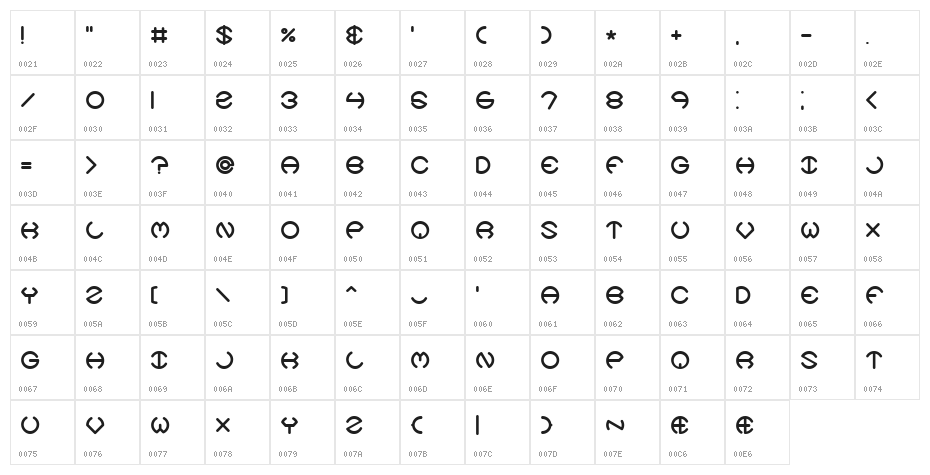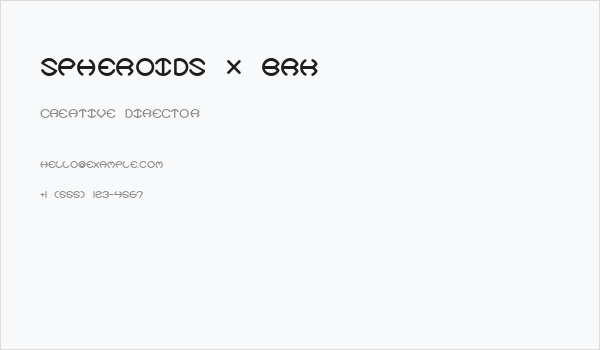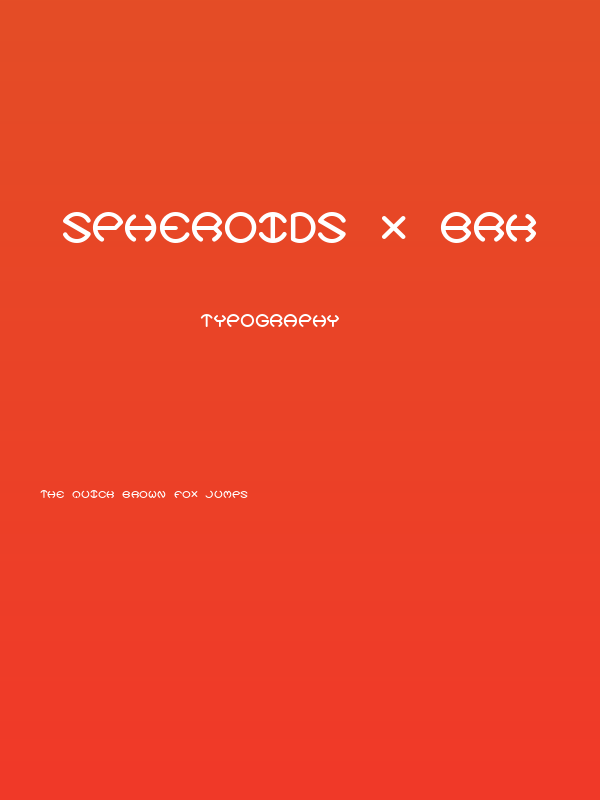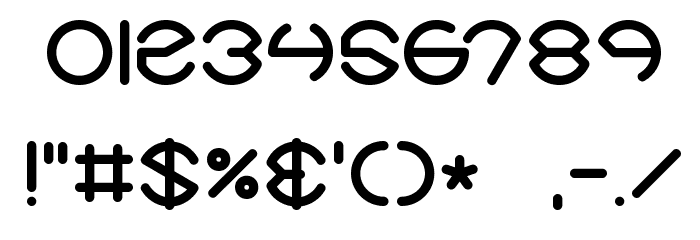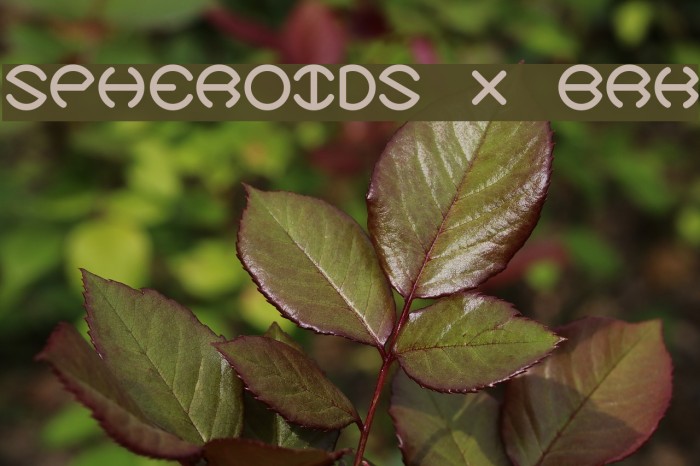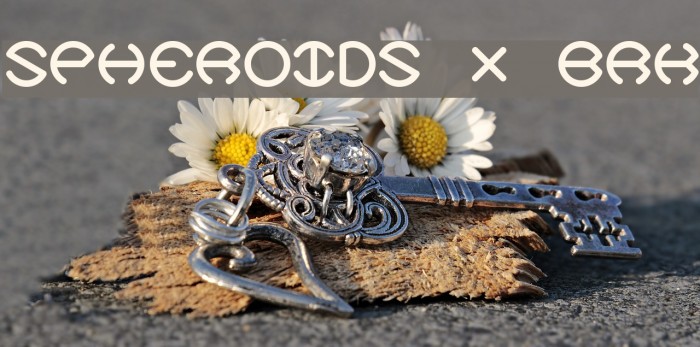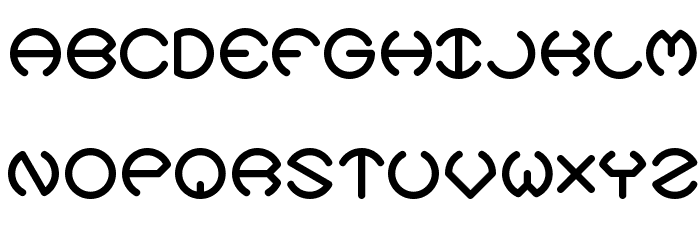
Spheroids X BRK Font
Spheroids X BRK Description
This font features a futuristic and geometric design, characterized by its rounded and interconnected letterforms. The strokes are consistent in thickness, giving it a uniform appearance. The characters are uniquely crafted with a blend of circular and straight lines, creating a modern and tech-inspired aesthetic. The font maintains a playful yet structured look, making it suitable for creative and contemporary projects. Its distinct style is evident in both uppercase and lowercase letters, as well as numerals and special characters, which all share the same cohesive design language.
| Use Case | Logos, Headlines, Posters |
| Proposed Projects | Ideal for tech branding, sci-fi posters, video game titles, and modern advertising. |